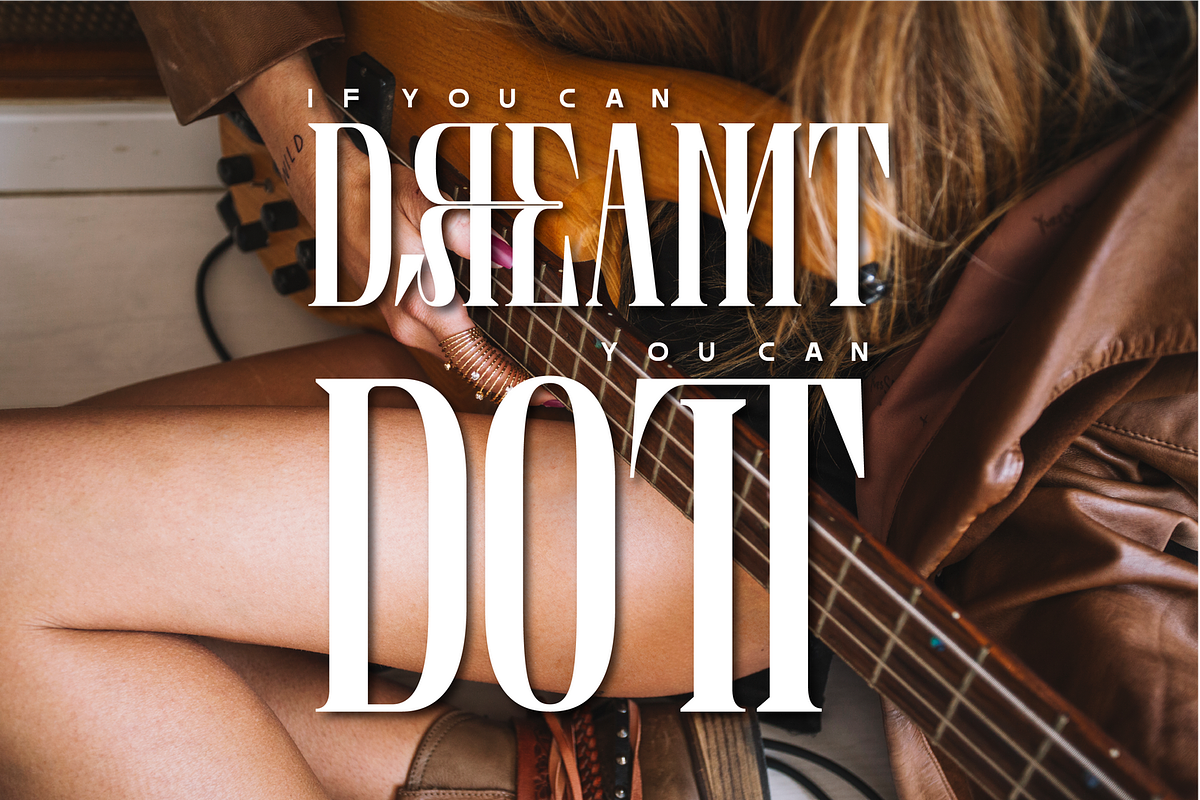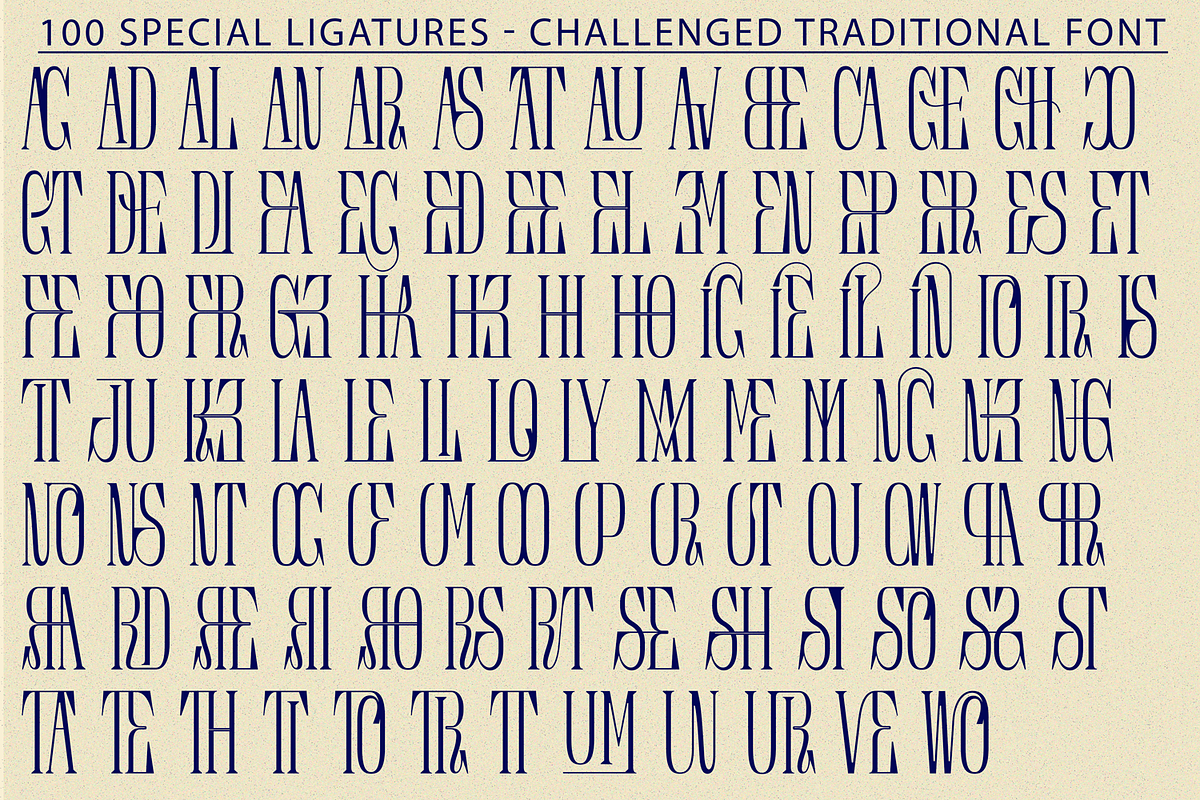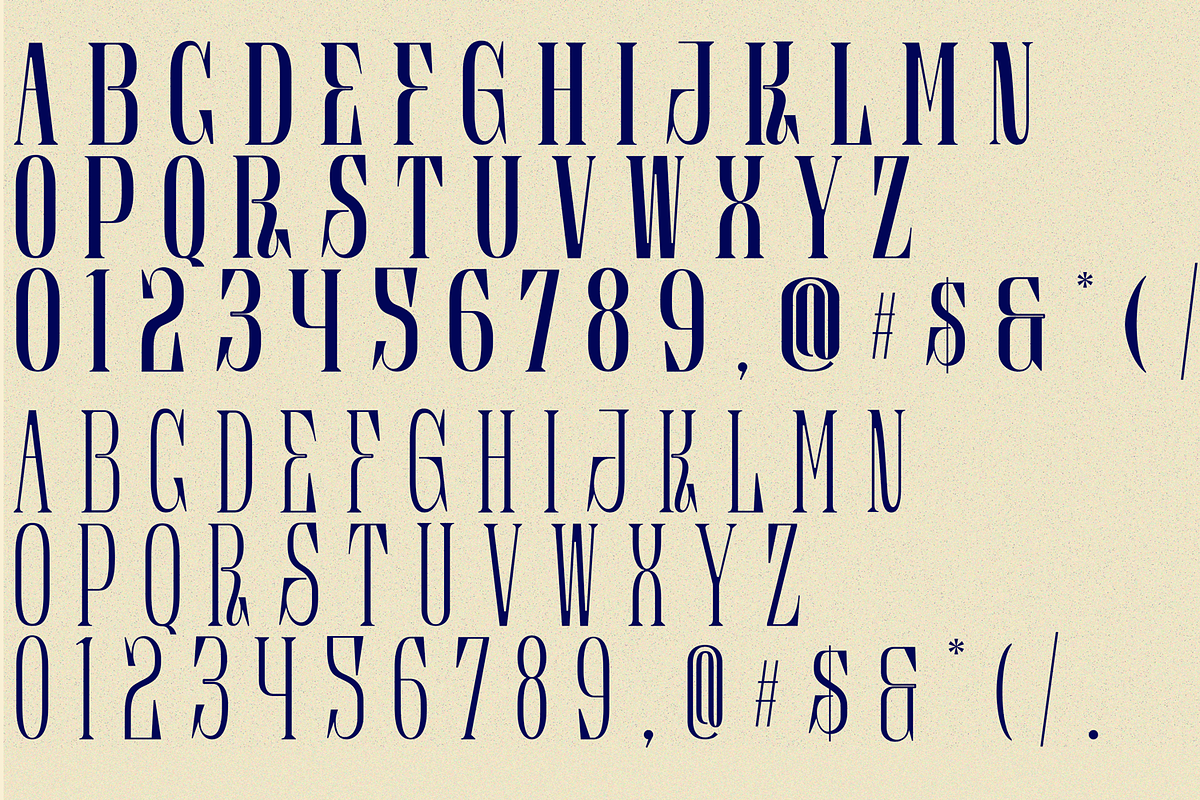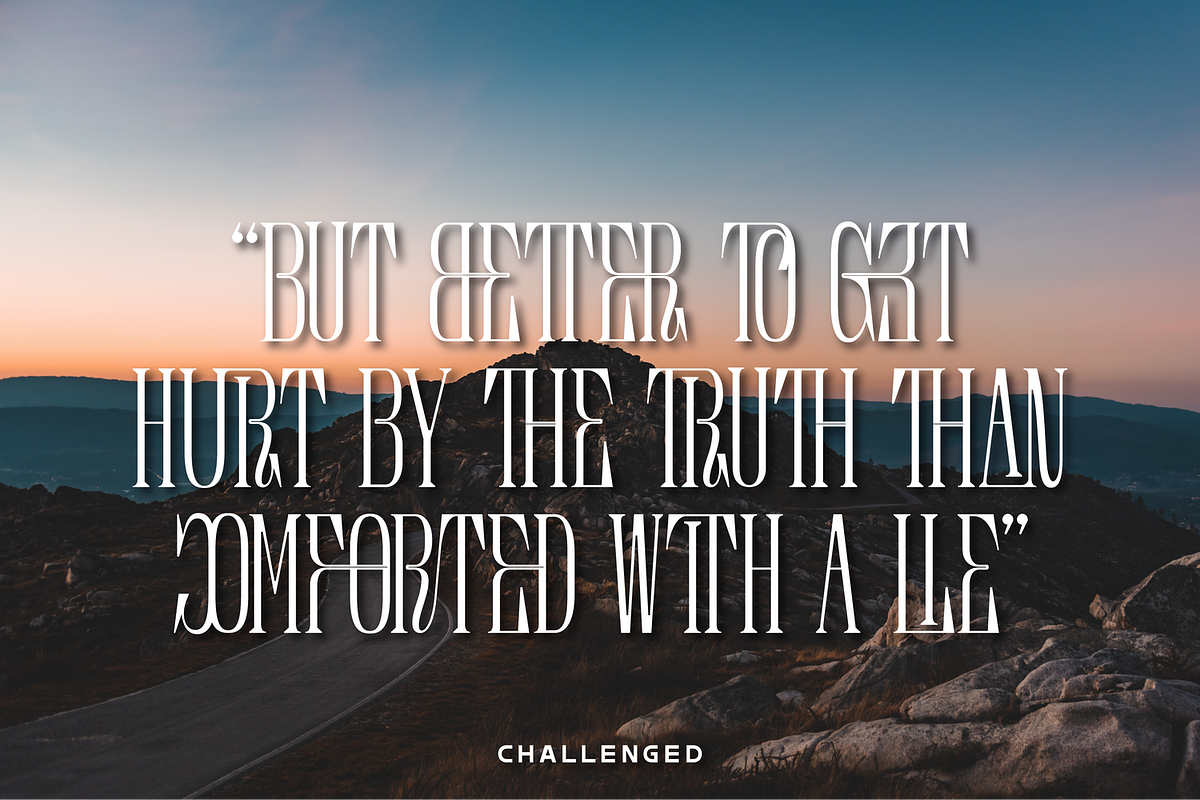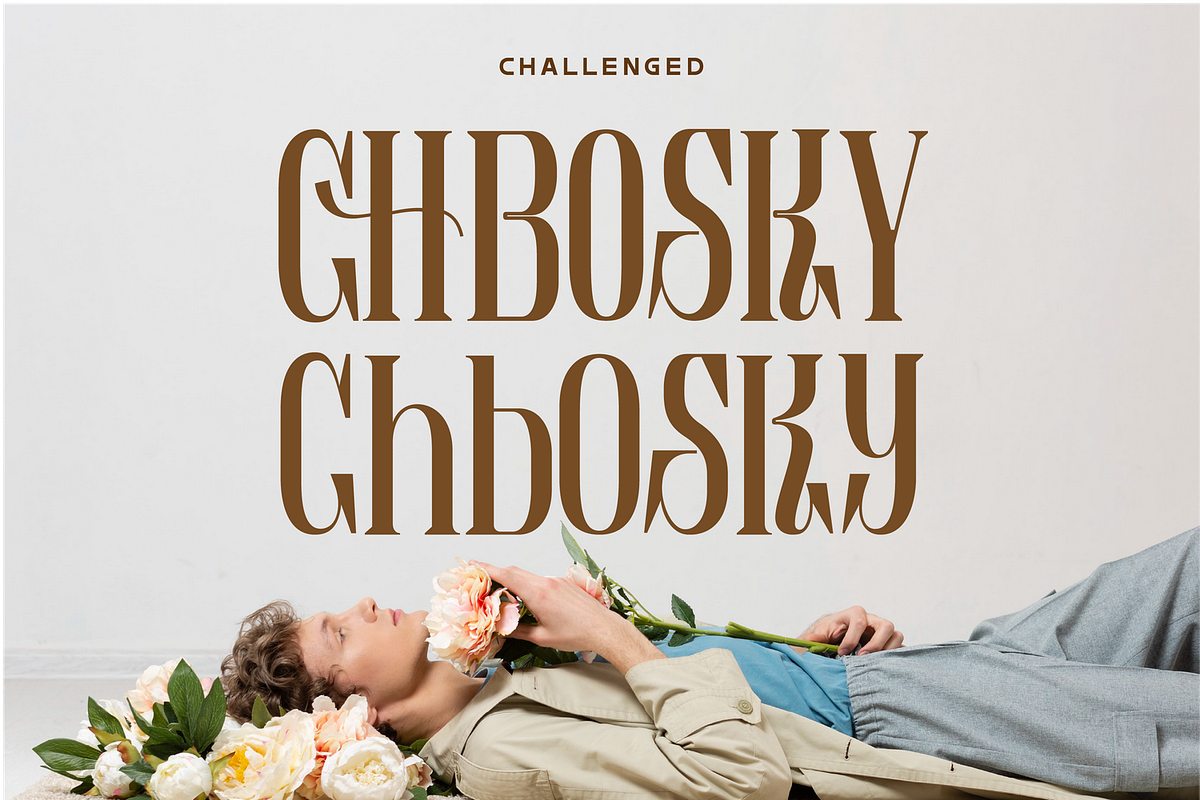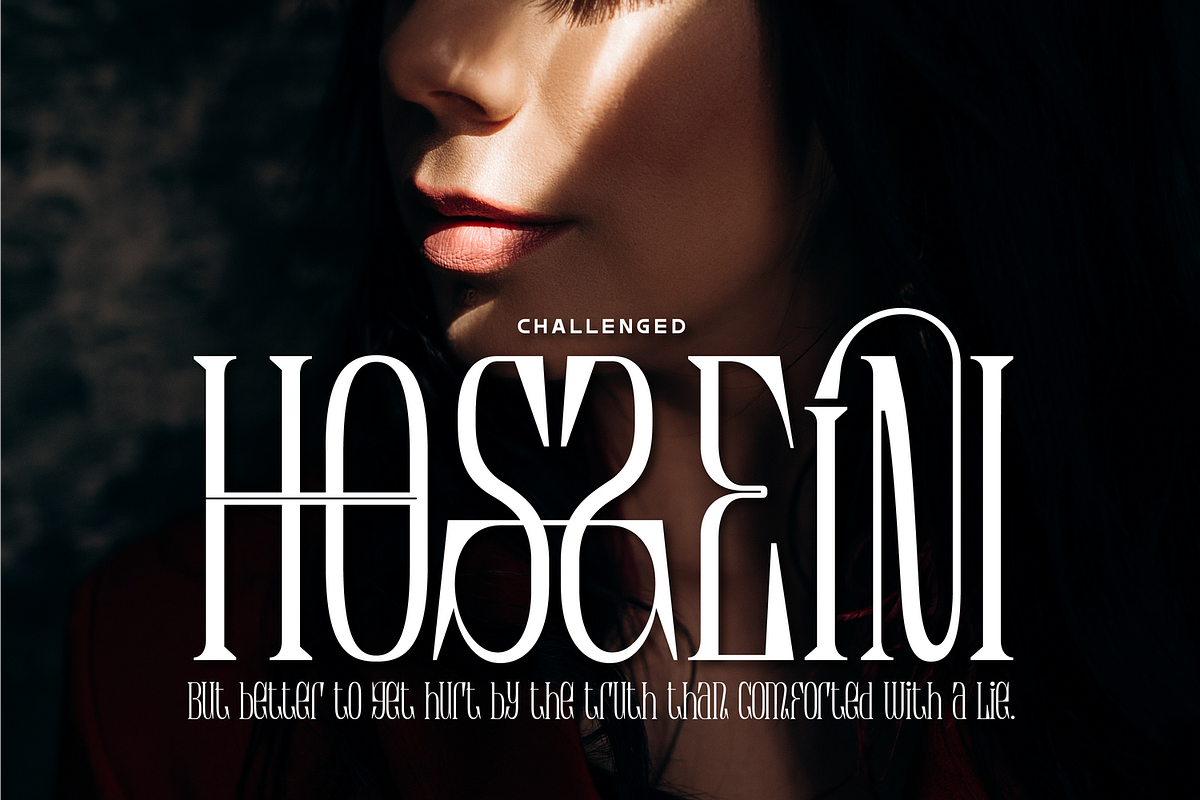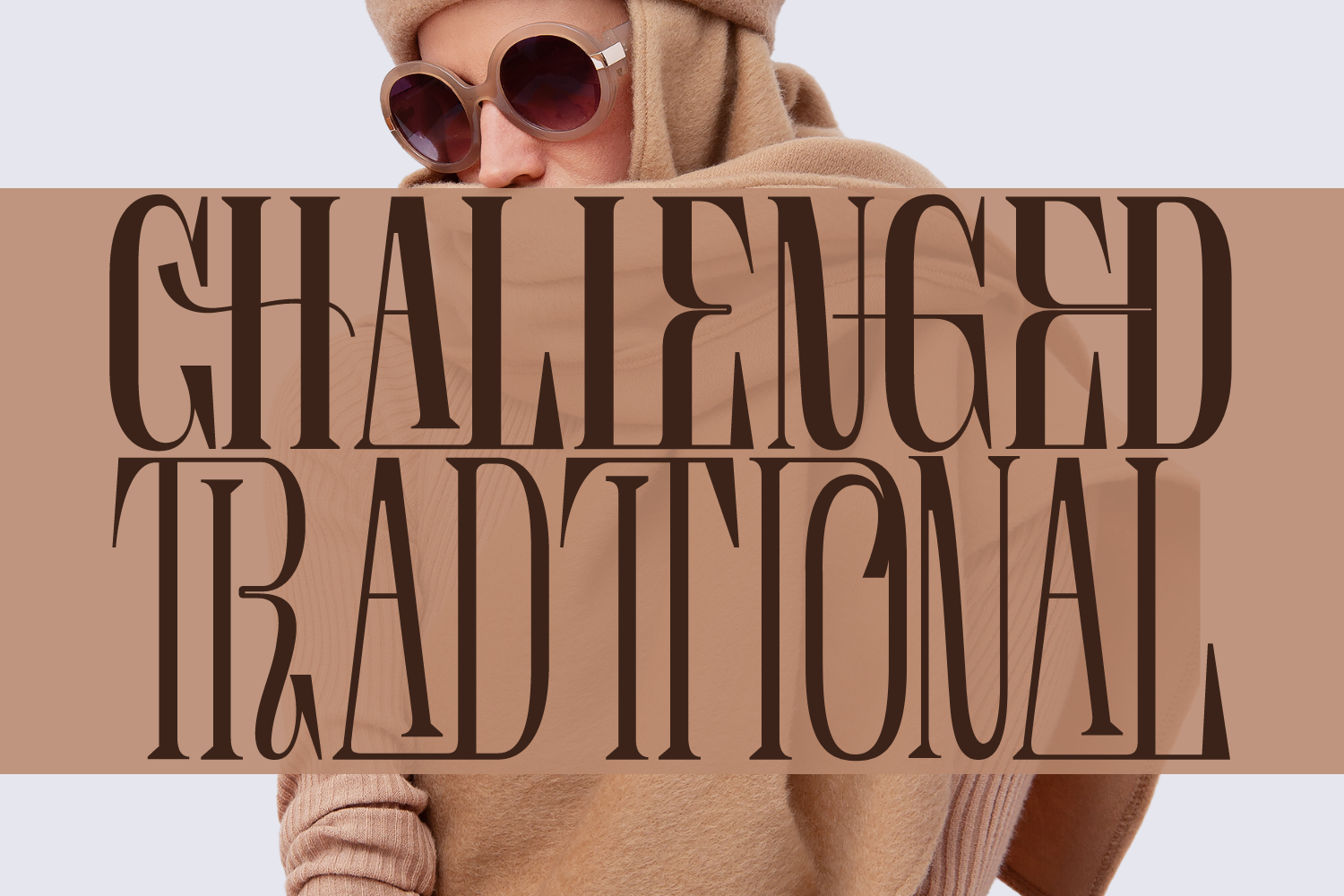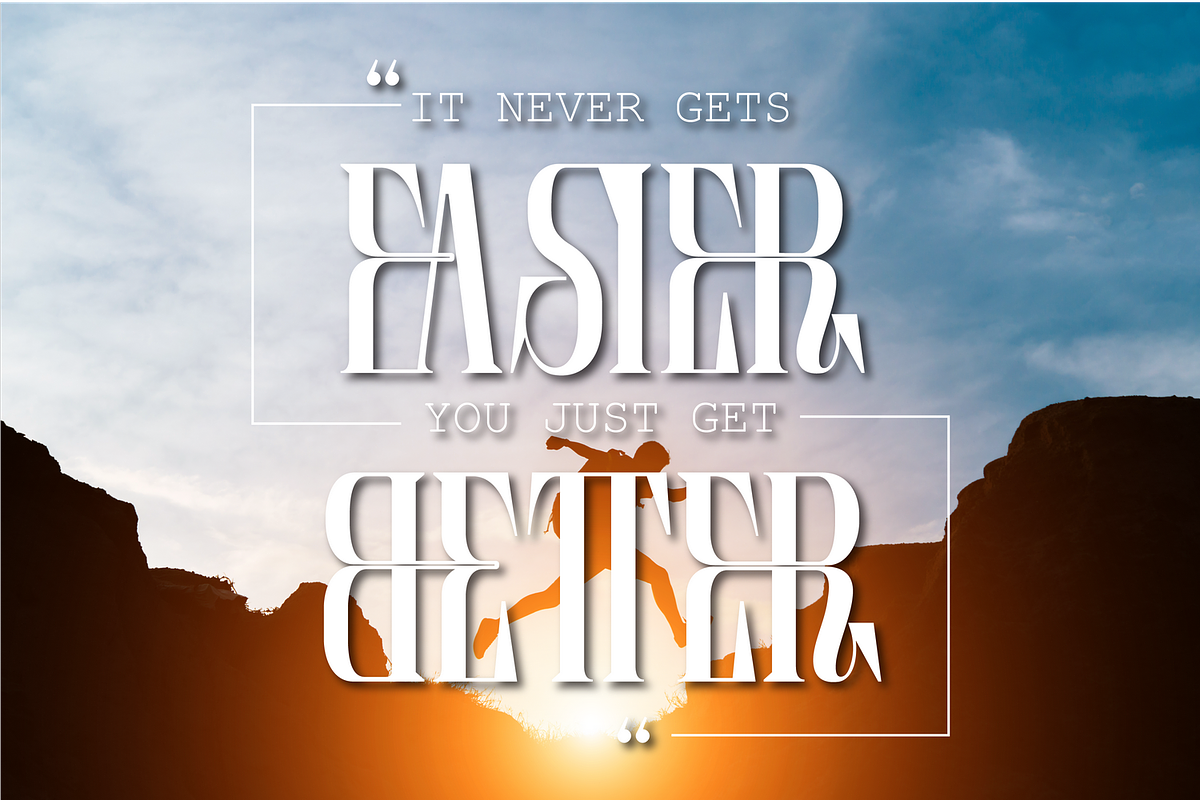
CHALLENGED TRADITIONAL FONT
CHALLENGED TRADITIONAL FONT is a modern display serif font that embraces elegance and grace. Its delicate curves and refined details create a sense of sophistication and femininity. We keep this font looks fashionable, elegant, luxury, premium, modern, catchy and easy to use. This font is a beautiful choice for any creative endeavor, creating elegant, chic, lifestyle design such as logos, title, cover, branding, display and magazine, and more.
CHALLENGED TRADITIONAL was built with OpenType features and includes 100 ligatures, alternate, numbers, punctuation, and it also supports other languages.
AC AD AL AN AR AS AT AU AV BE CA CE CH CO CT DE DI EA EC ED EE EL EM EN EP ER ES ET FE FO FR GE HA HE HI HO IE IC IL IN IO IR IS IT JU KE LA LE LI LL LO LY MA ME MI NC ND NE NG NO NT NS OC OF OM ON OO OP OR OT OU OW PA PR RA RD RE RI RO RS RT SE SH SI SO SS ST TA TE TH TI TO TR TT UM UN UR VE WI WO